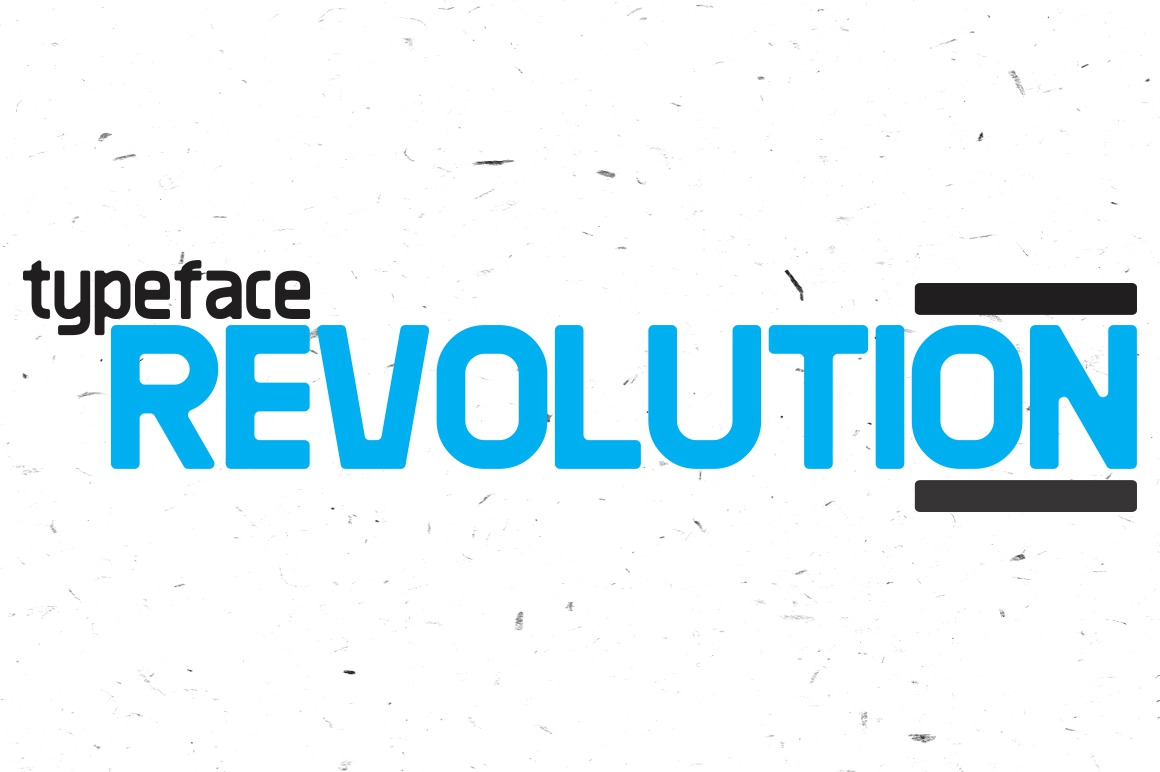
Revolution Typeface
Revolution is a new contemporary impact typeface specifically designed to look good on posters, banners, flyers and other advertising materials. It includes more than 210 glyphs available in normal, bold, italic and bold italic styles to fit your needs.